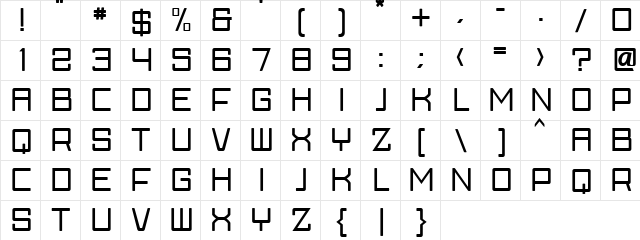
Skylark Regular
Design Context for Skylark Typeface
Skylark takes a measured approach to typography — its balanced proportions and neutral character make it a reliable workhorse for both digital and print work.